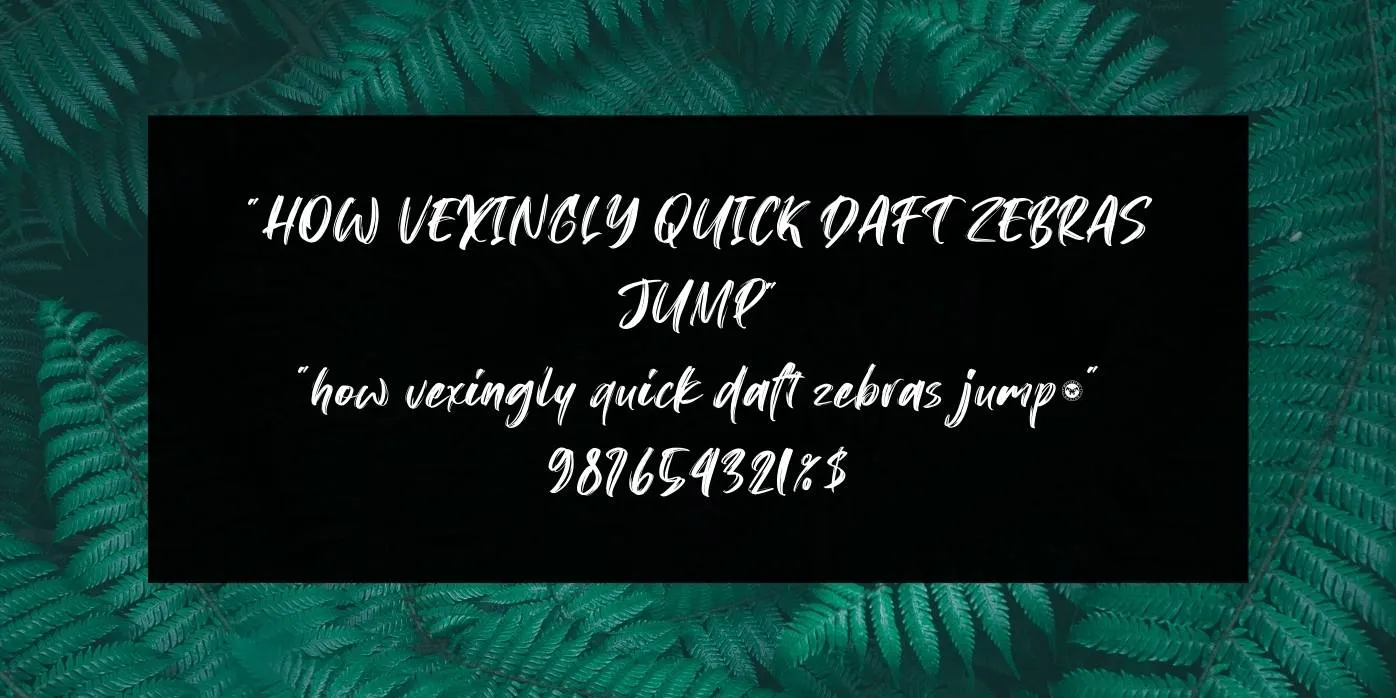
Konichiwa Font
Konichiwa Font is a brush typeface that was designed in 2014 by Sideshow. This Font is a Japanese word that means hello or good day. The font was inspired by the brush typefaces of the early 20th century. The font includes both upper and lowercase letters, as well as numbers and punctuation.
You can give your designs a marvelous touch then try to pair melisa font and make your designs astonishing. While this font is a great choice for any project, it’s particularly well-suited for use in branding and advertising. The font’s clean lines and modern look make it perfect for creating logos, website headers, and other marketing materials.